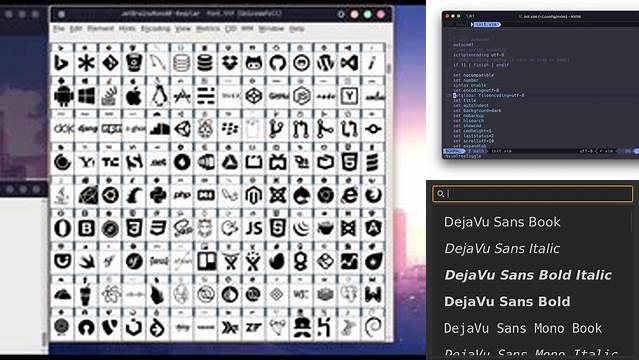
Neovim Without Nerd Fonts: A Practical Guide
Hey guys! So, you're diving into the world of Neovim, the cool kid on the block when it comes to text editors, but you're not quite sold on those Nerd Fonts? No sweat! You're in the right place. In this comprehensive guide, we're going to explore how to get the most out of Neovim without relying on these icon-heavy fonts. We’ll cover everything from the philosophy behind this choice to practical steps and alternative solutions. Get ready to make your Neovim experience uniquely yours!
Why Go Fontless? The Philosophy of Neovim Without Nerd Fonts
Let's kick things off by understanding why you might want to ditch Nerd Fonts. Nerd Fonts, while awesome for adding those slick icons to your status bar and file explorer, aren't everyone's cup of tea. You may find that Nerd Fonts can be resource-intensive, impacting the performance of your editor, especially on older machines. The sheer number of glyphs in Nerd Fonts can sometimes lead to rendering issues, especially in certain terminals or operating systems. This can manifest as odd spacing, missing icons, or even a completely garbled display. For many, the aesthetic of Nerd Fonts, while visually appealing, may not align with their personal taste. Some users prefer a cleaner, more minimalist look and feel for their editor, focusing on code readability above all else. There's a beauty in simplicity, and sometimes, those extra icons can feel like visual clutter. Neovim is all about customization. Choosing to forgo Nerd Fonts is a statement in itself—a decision to prioritize performance, compatibility, and personal taste. It's about crafting an editor that feels like an extension of your mind, free from unnecessary distractions. The decision to avoid Nerd Fonts can also stem from a desire to keep your setup lightweight and portable. Nerd Fonts can be quite large files, and installing them across multiple systems or sharing configurations can become cumbersome. By opting for standard fonts, you ensure that your Neovim setup remains lean and easy to manage, making it a breeze to replicate your environment across different machines. This approach aligns perfectly with the Unix philosophy of doing one thing well. Without the reliance on specialized fonts, you’re forced to look at the core functionality of each plugin, ensuring that it enhances your workflow without unnecessary visual dependencies. This can lead to a deeper understanding of your tools and how they integrate with Neovim. Ultimately, ditching Nerd Fonts isn't about missing out; it's about making a conscious choice to prioritize certain aspects of your editing experience. Whether it's performance, compatibility, aesthetics, or simplicity, this decision can lead to a more streamlined, efficient, and personally satisfying Neovim setup. It’s about making Neovim truly yours, tailored to your specific needs and preferences. So, let's dive into the practical side and explore how to achieve this!
Setting the Stage: Configuring Neovim for Non-Nerd Fonts
Alright, let's get practical! To make Neovim shine without Nerd Fonts, the first crucial step is setting the right font. Choosing a font that's both readable and compatible with your terminal is essential. Popular choices include monospace fonts like Fira Code, JetBrains Mono, or Hack. These fonts are designed for coding, ensuring that each character has the same width, which enhances readability. Configuring Neovim to use these fonts is straightforward. You'll need to adjust the guifont
option in your init.vim
or init.lua
file, depending on whether you're using Vimscript or Lua for your configuration. For Vimscript, you would add something like set guifont=Fira\ Code:h12
to your configuration file. Here, Fira Code
is the font name, and h12
specifies the font size. You can tweak the size to your liking. If you're a Lua aficionado, the equivalent configuration would look like this: vim.opt.guifont = "Fira Code:h12"
. Again, feel free to adjust the font and size to suit your preferences. After setting the font, it’s important to ensure that your terminal emulator is also configured to use the same font. This consistency will prevent any rendering issues and ensure a smooth visual experience. Most terminal emulators have a settings menu where you can specify the font. Look for options like "Font Face" or "Font Family" and select the font you've chosen for Neovim. Once your font is set, let's talk about color schemes. The right color scheme can significantly enhance your Neovim experience, especially when you're not relying on font-based icons. A well-chosen color scheme can provide visual cues and highlight important elements in your code, making it easier to read and navigate. There are countless color schemes available for Neovim, ranging from light and airy to dark and moody. Some popular options include Nord, Dracula, and Solarized. You can find many more on sites like vimcolors.com or through Neovim plugin managers like vim-plug or packer.nvim. Installing a color scheme usually involves downloading the color scheme file and placing it in the colors
directory within your Neovim configuration directory (e.g., ~/.config/nvim/colors
). Then, you can activate the color scheme by adding colorscheme <color_scheme_name>
to your init.vim
or vim.cmd.colorscheme '<color_scheme_name>'
to your init.lua
. Remember to replace <color_scheme_name>
with the actual name of the color scheme file. Experiment with different color schemes to find one that suits your eyes and coding style. A good color scheme can make a world of difference in how you perceive and interact with your code, especially when you're not using Nerd Fonts to provide visual cues. By carefully selecting your font and color scheme, you’re setting a solid foundation for a productive and enjoyable Neovim experience without the need for Nerd Fonts. This is where the journey of customization truly begins, allowing you to tailor your editor to your specific needs and preferences.
Plugin Power: Enhancing Neovim Functionality Without Icons
Now that we've nailed the basics, let's talk plugins. The Neovim ecosystem is brimming with awesome plugins, and you don't need Nerd Fonts to leverage their power! There are plenty of ways to enhance your Neovim setup without relying on icon-heavy plugins. Let's explore some key areas and how to tackle them. First up, file explorers. Plugins like nvim-tree.lua or oil.nvim provide file navigation without cluttering your interface with icons. Nvim-tree.lua, for example, offers a clean, tree-like structure that's easy to navigate using your keyboard. You can customize its appearance and behavior through Lua configuration, tailoring it to your workflow. Oil.nvim takes a different approach, integrating file exploration directly into Neovim buffers. This minimalist approach keeps your focus on the code while still providing convenient file access. Both options are excellent alternatives to file explorers that heavily rely on Nerd Fonts for their icons. Next, let's consider status lines and tab lines. These are crucial for displaying information about your current editing session, such as file name, file type, and Git status. Without Nerd Fonts, you might think you're limited to plain text, but that's not the case! Plugins like lualine.nvim and feline.nvim allow you to create visually appealing and informative status lines using plain text and Unicode characters. These plugins are highly customizable, allowing you to display exactly the information you need in a way that fits your aesthetic preferences. For instance, you can use Unicode symbols like arrows or blocks to create visual separators and indicators, adding a touch of visual flair without the need for Nerd Fonts. Fuzzy finders are another essential tool for navigating large codebases. Plugins like telescope.nvim and fzf.vim make it easy to quickly find files, buffers, and other items in your project. While some fuzzy finders may use icons, many offer customization options to disable or replace them with text-based alternatives. Telescope.nvim, in particular, is known for its extensibility and customization options, allowing you to tailor its appearance and behavior to your liking. You can configure Telescope to use plain text labels for its results, ensuring a clean and consistent look without Nerd Fonts. Git integration is crucial for many developers, and Neovim offers several excellent Git plugins. Plugins like vim-fugitive and Neogit provide a seamless Git experience within Neovim. While some Git plugins may use icons to indicate file status, many also offer text-based alternatives or customization options to disable icons altogether. Neogit, for example, provides a comprehensive Git interface within Neovim, allowing you to perform common Git tasks without leaving the editor. You can configure Neogit to use text-based indicators for file status, ensuring a consistent look and feel without Nerd Fonts. Code completion and LSP (Language Server Protocol) integration are essential for modern development workflows. Plugins like nvim-cmp and coc.nvim provide powerful code completion and LSP features in Neovim. While some completion sources may use icons, many also offer text-based alternatives or customization options to disable icons. Nvim-cmp, for example, is a highly customizable completion plugin that allows you to configure the appearance of its completion items. You can choose to display text labels instead of icons, ensuring a consistent look and feel without Nerd Fonts. By carefully selecting and configuring your plugins, you can create a powerful and efficient Neovim environment without relying on Nerd Fonts. The key is to look for plugins that offer customization options and allow you to tailor their appearance to your preferences. With a little bit of effort, you can build a Neovim setup that's both functional and aesthetically pleasing, all without the need for specialized fonts.
The Power of Unicode: Symbols as a Substitute
Okay, so you're ditching Nerd Fonts, but you still want some visual flair, right? That's where Unicode comes to the rescue! Unicode is a universal character encoding standard that includes a vast array of symbols and characters. These can be used in place of icons, adding visual cues to your Neovim setup without the need for specialized fonts. Think of Unicode as your secret weapon for a stylish yet minimalist Neovim experience. One of the most common use cases for Unicode symbols is in status lines and tab lines. Instead of relying on icons to indicate file status, Git branch, or other information, you can use Unicode symbols like arrows, separators, or even emojis (if you're feeling adventurous!). For example, you might use a simple arrow symbol (➔
) to separate sections in your status line or a branch symbol (
) to indicate the current Git branch. The possibilities are endless! Many of the status line plugins we mentioned earlier, like lualine.nvim and feline.nvim, make it easy to incorporate Unicode symbols into your configuration. You can simply specify the Unicode characters you want to use in your status line components, and the plugin will handle the rendering. File explorers are another area where Unicode symbols can shine. Instead of using icons to represent file types or directories, you can use Unicode symbols like folders (
Conclusion: Your Neovim, Your Way
So there you have it, guys! You've journeyed through the world of Neovim without Nerd Fonts, and hopefully, you're feeling empowered to customize your editor to your heart's content. Remember, the beauty of Neovim lies in its flexibility. You're not limited to any one way of doing things. Whether you choose to ditch Nerd Fonts for performance, aesthetics, or simplicity, the important thing is that you're creating an environment that works for you. This guide has equipped you with the knowledge and tools to make informed choices about your Neovim setup. You've learned why you might choose to avoid Nerd Fonts, how to configure Neovim with non-Nerd Fonts, how to leverage plugins without relying on icons, and how to use Unicode symbols as a substitute. You've also gained valuable troubleshooting skills to tackle font-related issues. By now, you should be well-equipped to create a Neovim environment that's both functional and visually appealing, without the need for specialized fonts. But the journey doesn't end here! Customizing Neovim is an ongoing process. As you learn new things and your needs evolve, you'll likely want to tweak and refine your setup. That's part of the fun! The Neovim community is a fantastic resource for learning and inspiration. There are countless plugins, color schemes, and configurations out there, and the community is always eager to share their knowledge and experience. Don't hesitate to explore different options and try new things. Experiment with different fonts, color schemes, and plugin configurations. See what works best for you and your workflow. The more you experiment, the more you'll learn about Neovim and how to make it your own. Remember, there's no one-size-fits-all solution when it comes to Neovim customization. What works for one person may not work for another. The key is to find what works for you and to create a setup that makes you happy and productive. So, go forth and customize! Embrace the power of Neovim and make it your own. Whether you're a seasoned developer or just starting out, Neovim can be a powerful tool for writing code and getting things done. By taking the time to customize it to your liking, you can create an environment that's both efficient and enjoyable to use. Happy coding, and remember, your Neovim, your way! It’s about the journey of continuous improvement and personalization, ensuring your editor remains a powerful extension of your coding mind.